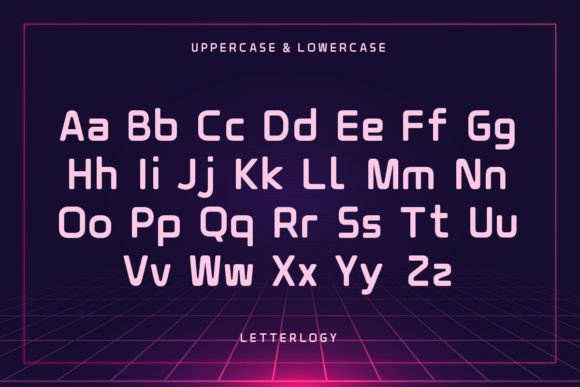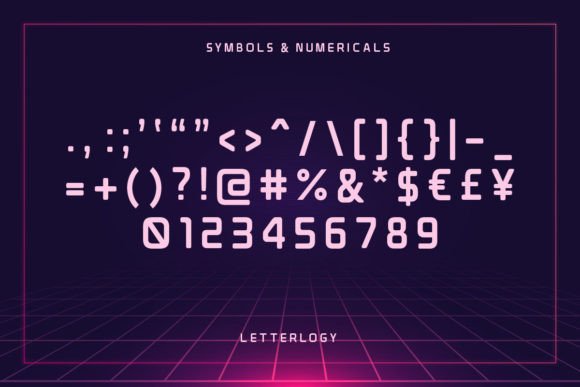
Unlocking the Secrets of a Retro-Futuristic Font
Remember the moment when you’re working on a project and you need that one font to bring it all together? You browse through your font library, but nothing seems quite right. That’s when you stumble upon a font that transports you to a world of possibilities – a world where the lines between past and future blur. For designers like you, the Blackhill Font is about to become your new go-to companion.
This retro-futuristic sans serif font is the perfect blend of modern and futuristic design elements, giving your projects an unparalleled edge. With Blackhill Font, you can create designs that are both nostalgic and forward-thinking, making it an invaluable addition to any designer’s toolkit.
- Unique Characteristics: The Blackhill Font features a distinctive, modern design with geometric shapes and clean lines, making it ideal for use in logos, branding, and digital interfaces.
Designer Review: Blackhill Font
I’ve had the chance to work with Blackhill Font, and here’s my honest review. ✨ First, I think the font has a great balance of modernity and simplicity. It’s clean, easy to read, and versatile enough to be used in a variety of projects. The font’s subtle texture and subtle weight variations add a touch of sophistication to any design.
- ✨ Excellent legibility: Blackhill Font is incredibly easy to read, making it perfect for body text, headlines, and even signage.
- ✨ Customization options: Blackhill Font offers a range of weights, from light to bold, allowing designers to find the perfect fit for their project.
However, there are some limitations to consider. ⚠️ The font’s sans-serif design might not be suitable for projects that require a more traditional or serif-based look. Additionally, some users might find the font’s subtle texture a bit too subtle, making it hard to notice on certain backgrounds.
Overall, I think Blackhill Font is a solid choice for designers looking for a modern, easy-to-read font. While it might not be perfect for every project, it’s a versatile and reliable option that can help elevate your designs.
Getting the Most Out of Blackhill Font
To get the most out of Blackhill font, use it sparingly and in creative ways:
- Use it for headings and titles to add a touch of elegance.
- Pair it with other fonts to create a unique and stylish typography.
Blackhill font is perfect for:
- Artistic and creative projects. Alternatives to Blackhill Font
Blackhill Font is a sans-serif font known for its modern and clean design. Here are a few alternatives that designers can consider:
Inter Font is a geometric sans-serif font designed by Rasmus Andersson. It is highly legible and suitable for body text, making it an ideal choice for long-form content. Inter Font is similar to Blackhill Font in its modern and clean design, but it has a more geometric feel to it. It is available in a wide range of weights and styles, making it a versatile choice for designers.